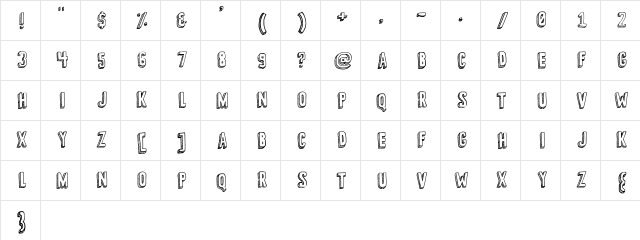
3-D Sketch Regular
| Designer | Linseed Studio |
Design Context for 3-D Sketch Typeface
3-D Sketch is a composed and adaptable typeface that performs quietly and consistently across a wide range of design contexts.